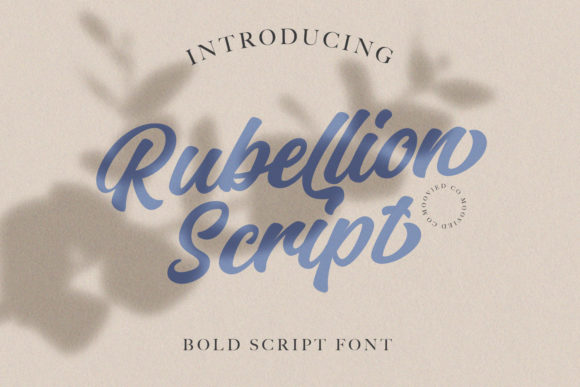
Rubelion Script: A Versatile Script Font for Web Design
When you are building a digital product or designing a landing page, every typographic choice carries weight. The font you select for your headers, call-to-action buttons, or hero section sets the tone before a visitor reads a single word. Rubelion Script is a display typeface that blends classic script influences with a contemporary digital presence. It includes gorgeous swashes and ligatures that give it a handmade feel while maintaining the consistency needed for screen-based work. For web designers and UI creators, this font opens up possibilities that go far beyond simple text styling.
What Makes Rubelion Script Stand Out in Digital Layouts
Rubelion Script draws from classic typography but does not feel dated. Its strokes have a natural rhythm, with fluid connections between letters that create a sense of movement. The swashes add flourish without overwhelming the word shape, and the ligatures help maintain a smooth reading experience even at larger sizes. This makes the font suitable for both decorative headlines and shorter branding elements. Unlike many script fonts that feel rigid or overly ornamental on screen, Rubelion Script keeps a friendly, approachable character that works well across modern web interfaces.
The personality of this typeface can be described as elegant yet warm. It carries a handcrafted energy that feels personal, which is valuable for brands that want to communicate authenticity. At the same time, the letterforms are carefully constructed, so they remain legible in digital contexts where quick scanning is the norm. For a UI designer, this balance between decorative flair and readability is essential. You get the visual interest of a script font without sacrificing the clarity your users need.
Where Rubelion Script Performs Best on the Web
In my own projects, I have found that Rubelion Script shines brightest in hero titles and section headings. When you place it at 48 pixels or larger on a landing page, the swashes and ligatures become a visual anchor. Visitors immediately understand the brand voice. For example, a boutique online store selling handmade ceramics could use Rubelion Script for the main heading above the fold. The font conveys craftsmanship and attention to detail, which aligns perfectly with the product story.
Short phrases also benefit from this typeface. Call-to-action buttons, taglines, and logo text can all carry the Rubelion Script treatment. Because the font has a distinct personality, it works well when you want a specific phrase to linger in the visitor’s mind. For a coaching website, using Rubelion Script for the hero tagline like “Your Journey Starts Here” adds a layer of warmth that a standard sans serif cannot replicate. The font becomes part of the emotional design.
For decorative accents, Rubelion Script can be used sparingly to draw attention. A single word in a blog header, a pull quote in an article, or a product badge on an e-commerce page all benefit from the font’s character. The key is to use it intentionally rather than overloading the layout. When every element fights for attention, the visual hierarchy collapses. Rubelion Script works best as a spotlight, not as background noise.
Readability and Visual Hierarchy in Responsive Designs
One concern with any script font is how it performs on smaller screens. Rubelion Script handles responsive scaling reasonably well, especially when you keep it at sizes above 28 pixels for headings. On mobile devices, the swashes and ligatures remain readable without feeling cramped. However, I recommend testing the font at various breakpoints. A hero heading that looks elegant on a desktop monitor might lose some clarity on a 375-pixel-wide phone screen if the font size is too small.
For visual hierarchy, Rubelion Script naturally draws the eye. This means you can use it to establish the primary focal point on a page. Pair it with a neutral sans serif for body copy, and the script becomes the hero while the sans serif does the heavy lifting for longer text. Users will scan the script heading first, then move down to the supporting content. This scanning behavior is predictable, and you can design your layout to guide the visitor exactly where you want them to go.
When placing Rubelion Script over images, consider contrast carefully. Light backgrounds with dark text work best. If you must use the font over a dark background or an image with complex details, add a subtle text shadow or a semi-transparent overlay to preserve readability. The font’s delicate swashes can get lost in busy backgrounds, so controlling contrast is a practical necessity.
Font Pairing Strategies for Rubelion Script
Pairing Rubelion Script with a clean sans serif is a reliable approach for most web projects. A geometric sans serif like Montserrat or a humanist sans like Open Sans provides a neutral counterpoint to the script’s decorative energy. The sans serif handles navigation menus, body paragraphs, form labels, and footer information, while Rubelion Script adds personality to headings and accent text. This combination creates a clear typographic system that supports both brand identity and usability.
Rubelion Script occupies a sweet spot in the landscape of script fonts for web design. It carries the elegance of classic typography while remaining practical for digital interfaces. Its swashes and ligatures add personality without compromising readability, and its versatile character allows it to work across hero sections, CTAs, banners, and brand assets. For web designers and UI creators looking for a script font that supports both brand identity and user experience, Rubelion Script deserves a close look. Test it in your next landing page or online store, and see how it shapes the way visitors perceive your work.